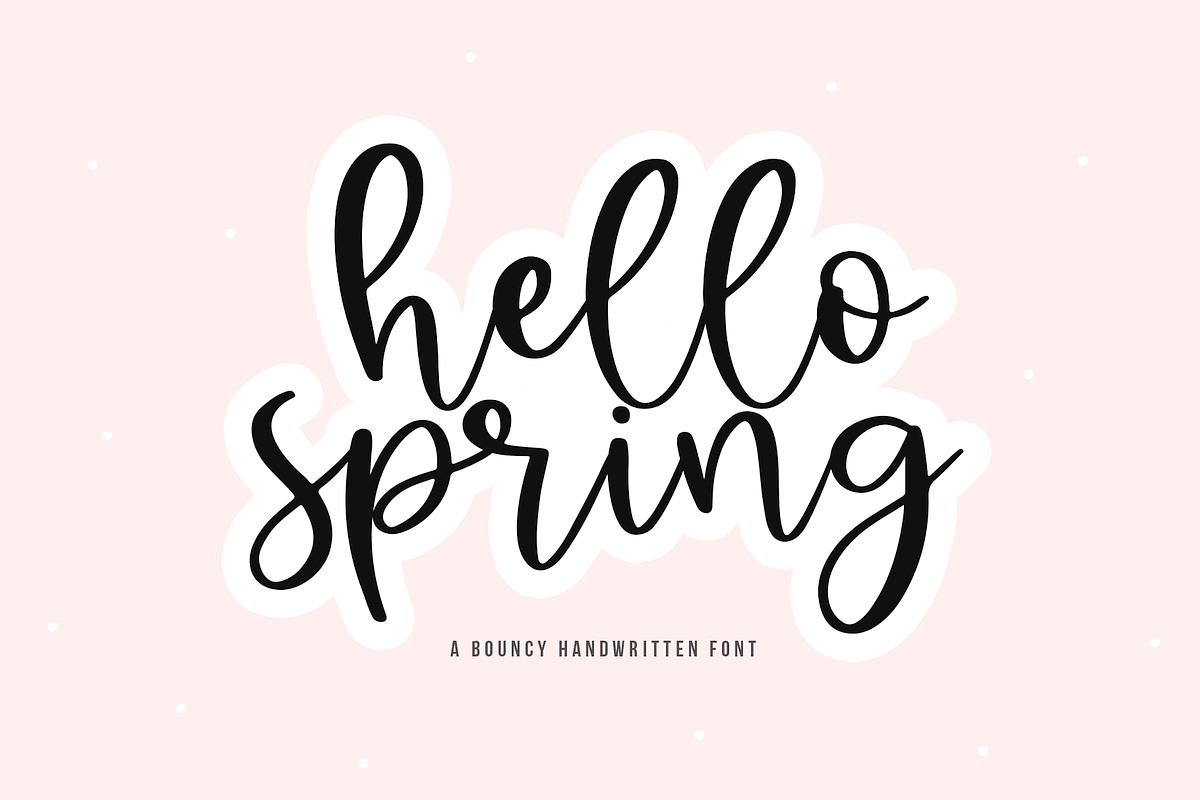
Hello Spring Bouncy Script Font Free Download
Hello Spring Bouncy Script Font Free Download is a cheerful and vibrant handwritten typeface that radiates the joy of springtime. With its playful curves, flowing baseline, and lively bounce, this script font is perfect for seasonal greetings, planner stickers, invitations, kids’ projects, and bright social media graphics.
Designed to feel light-hearted and natural, Hello Spring adds warmth and personality to any design. It comes with stylistic alternates and ligatures, giving your text a hand-lettered, custom-made look that’s both fun and professional.